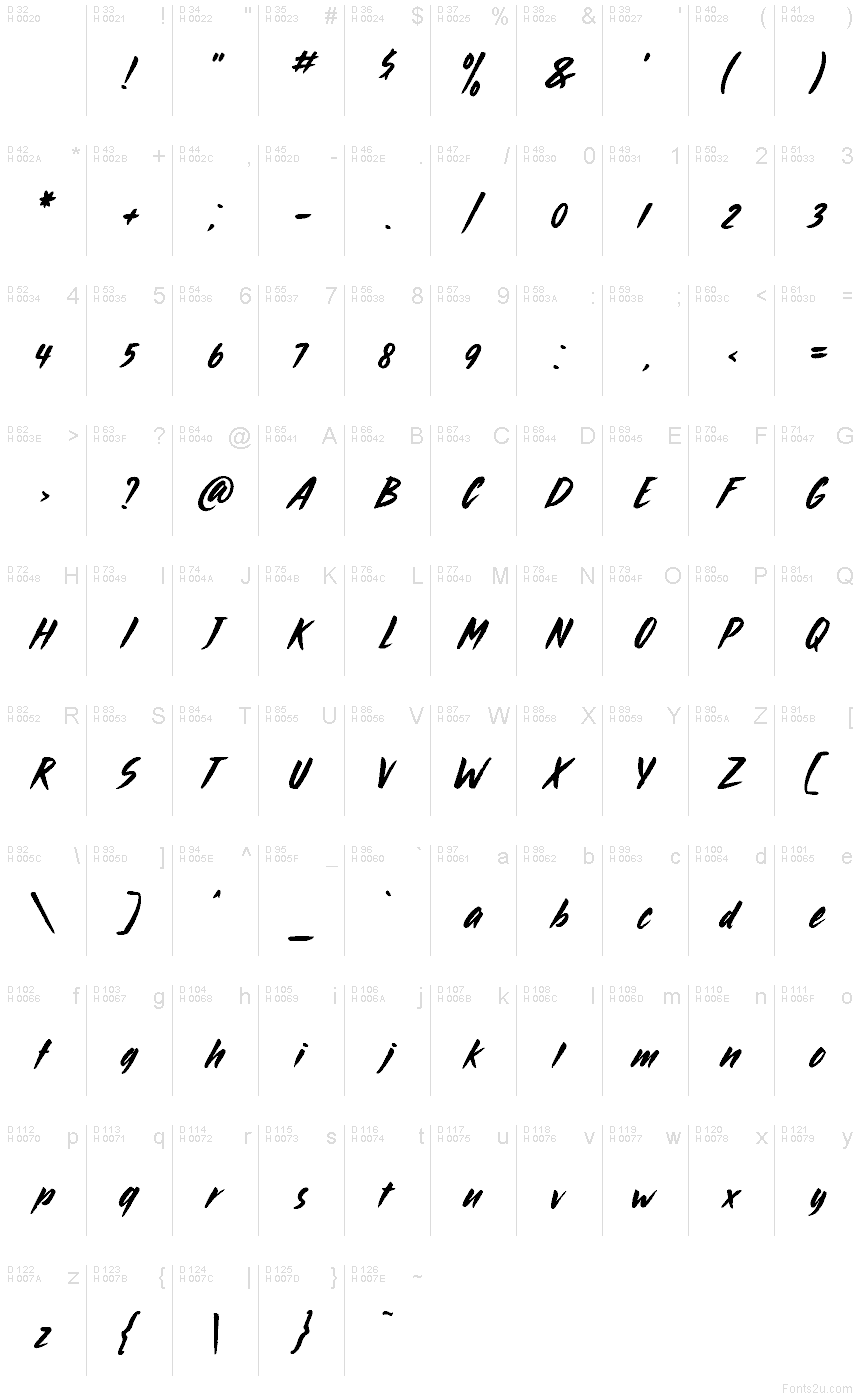
The Silent Night
The Silent Night font by Cat.B is a free brush display font. It stands out with fast, slanted strokes that feel freshly painted—inky pressure changes, sharp cut terminals, and a dry-brush grain that keeps edges lively while staying legible. The rhythm is tight and energetic, giving headlines punch without losing control.
Using The Silent Night, you’ll get instant impact on posters, album covers, sports branding, apparel prints, event flyers, and bold social headers. This free font loves big sizes and a touch of breathing room around it; pair it with a clean geometric sans for body text to let the brushwork do the talking.